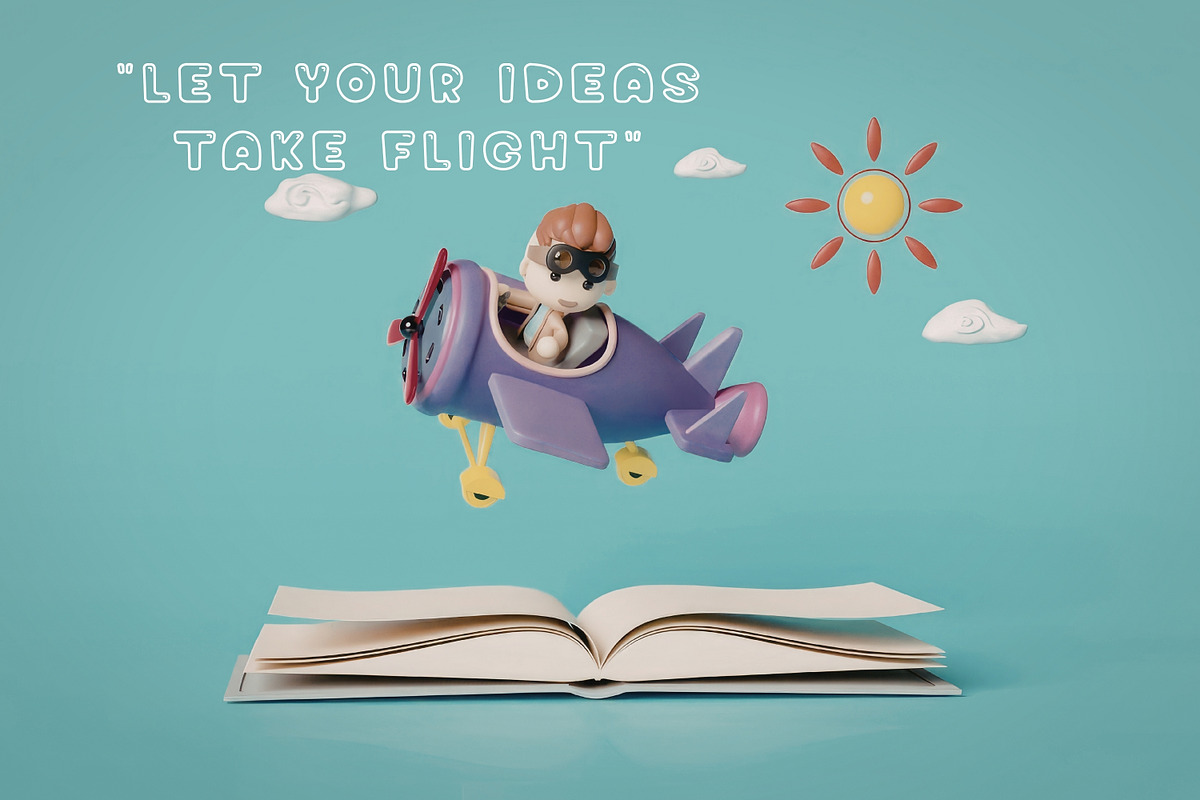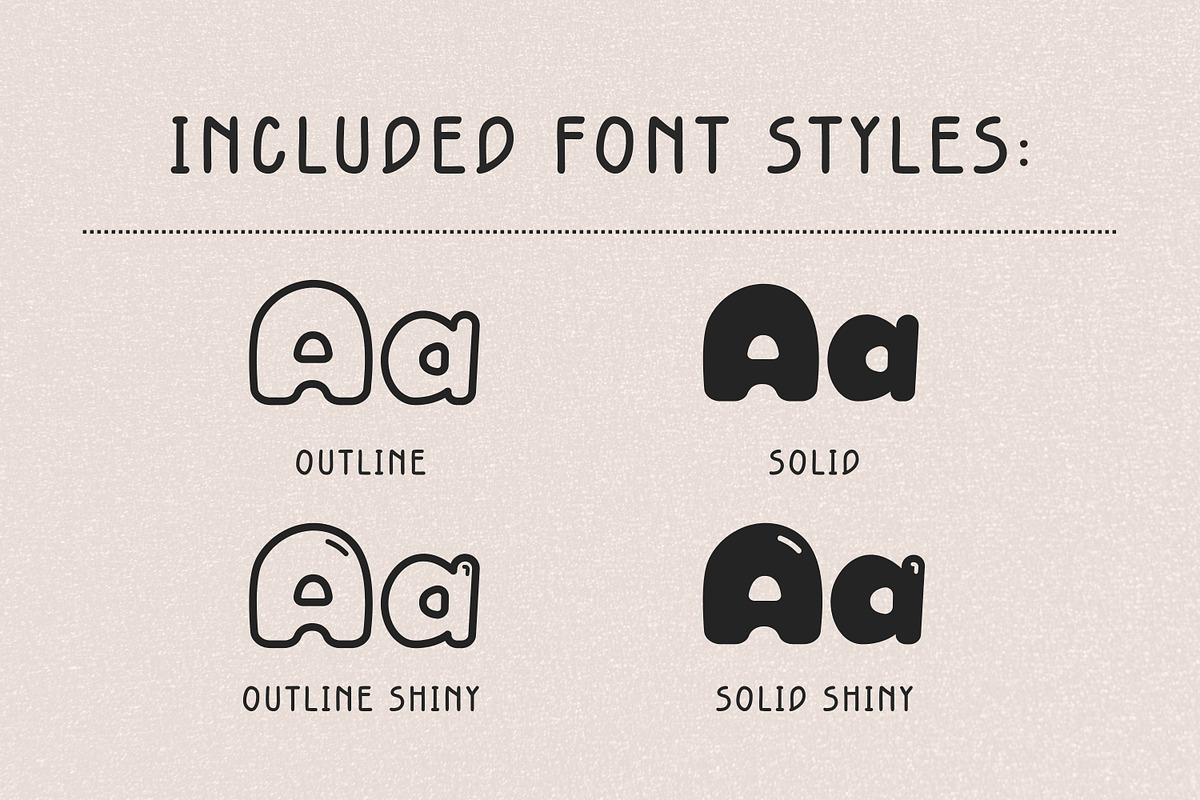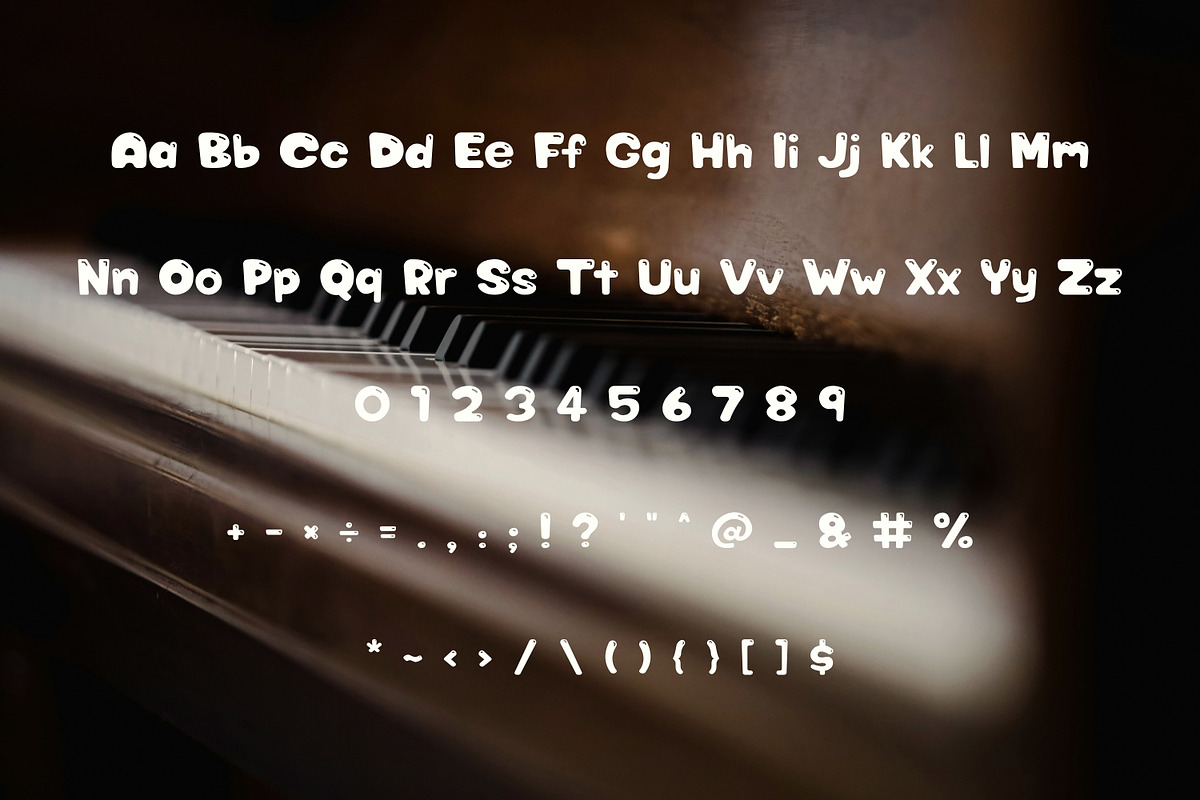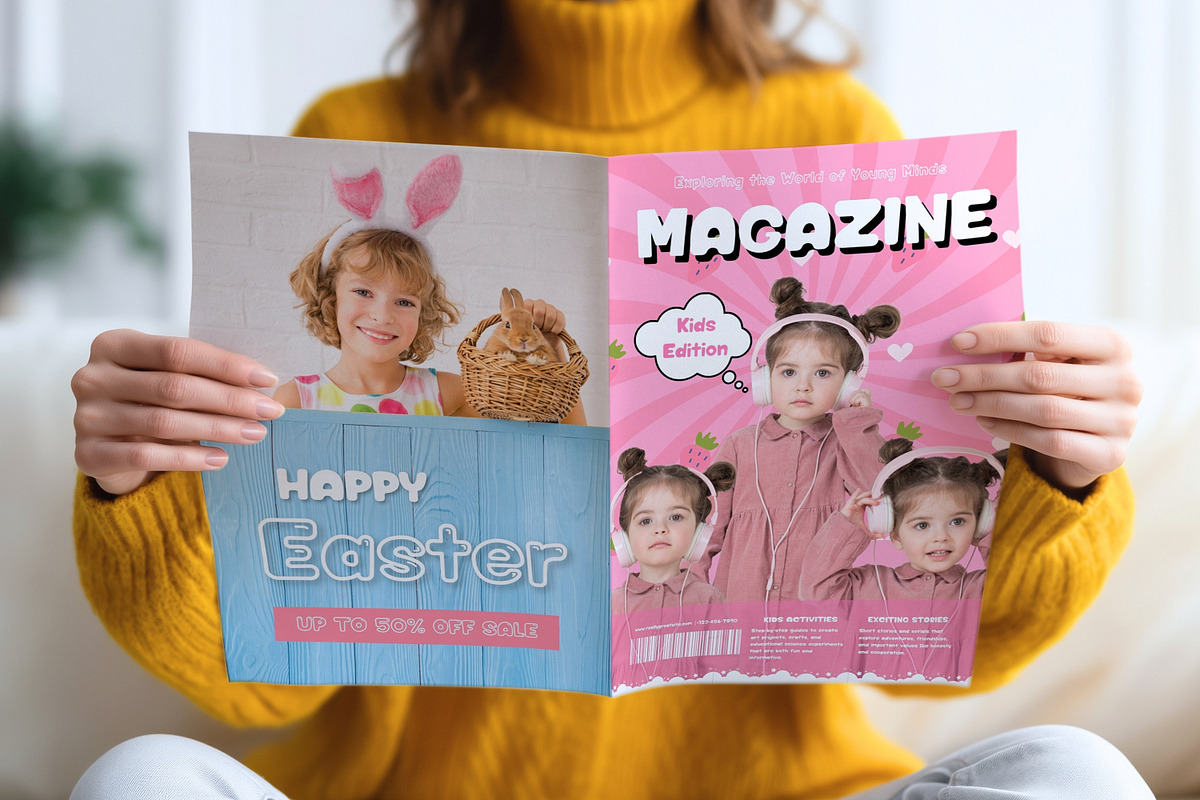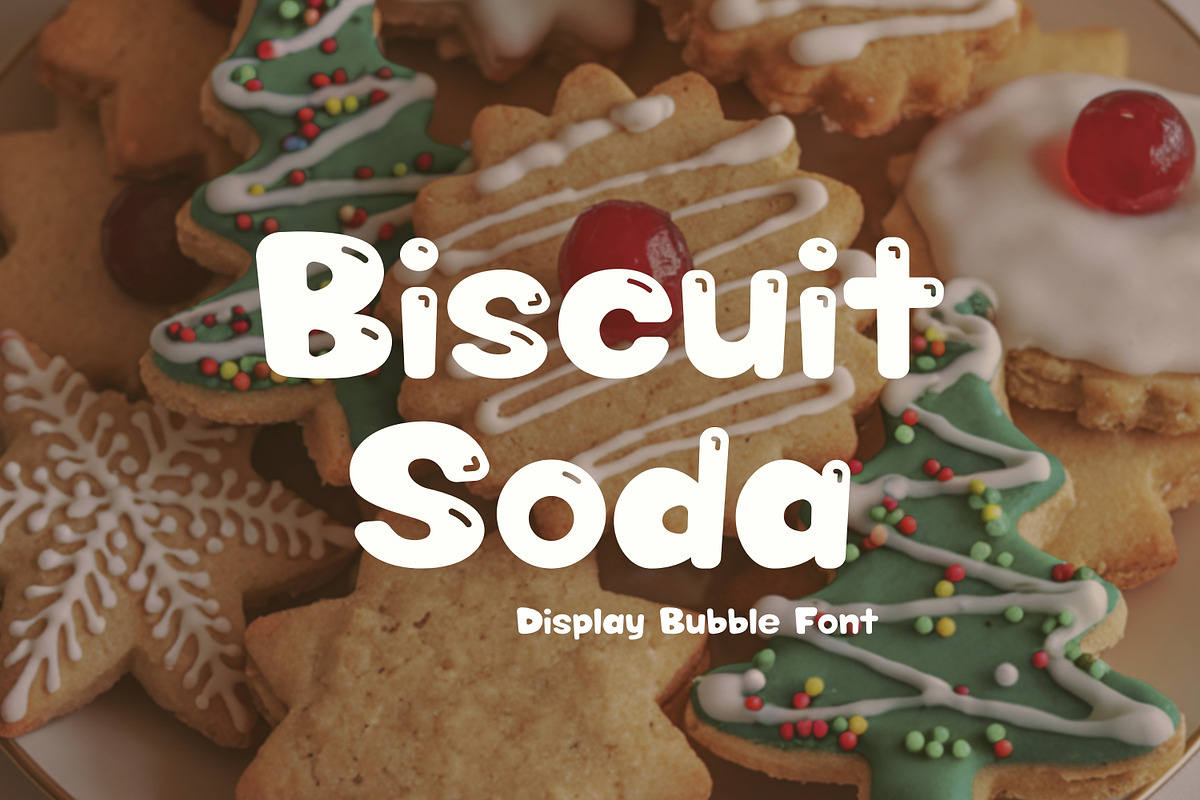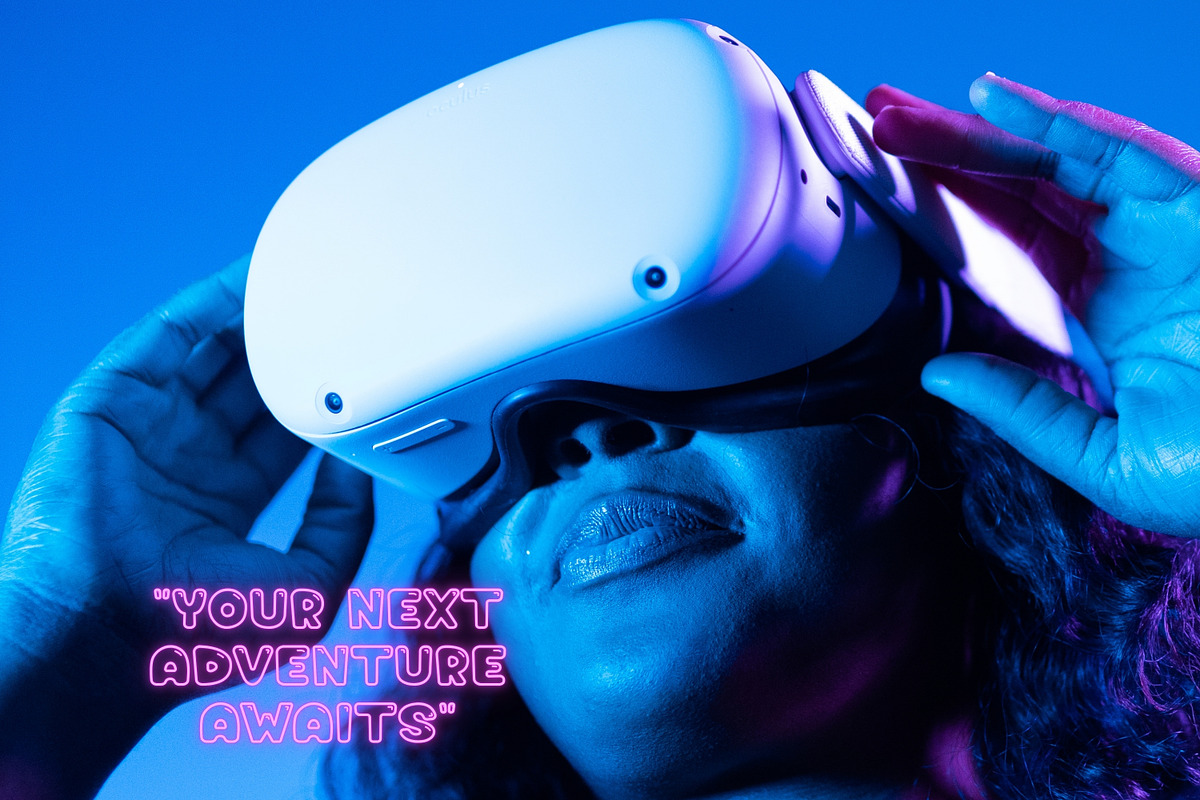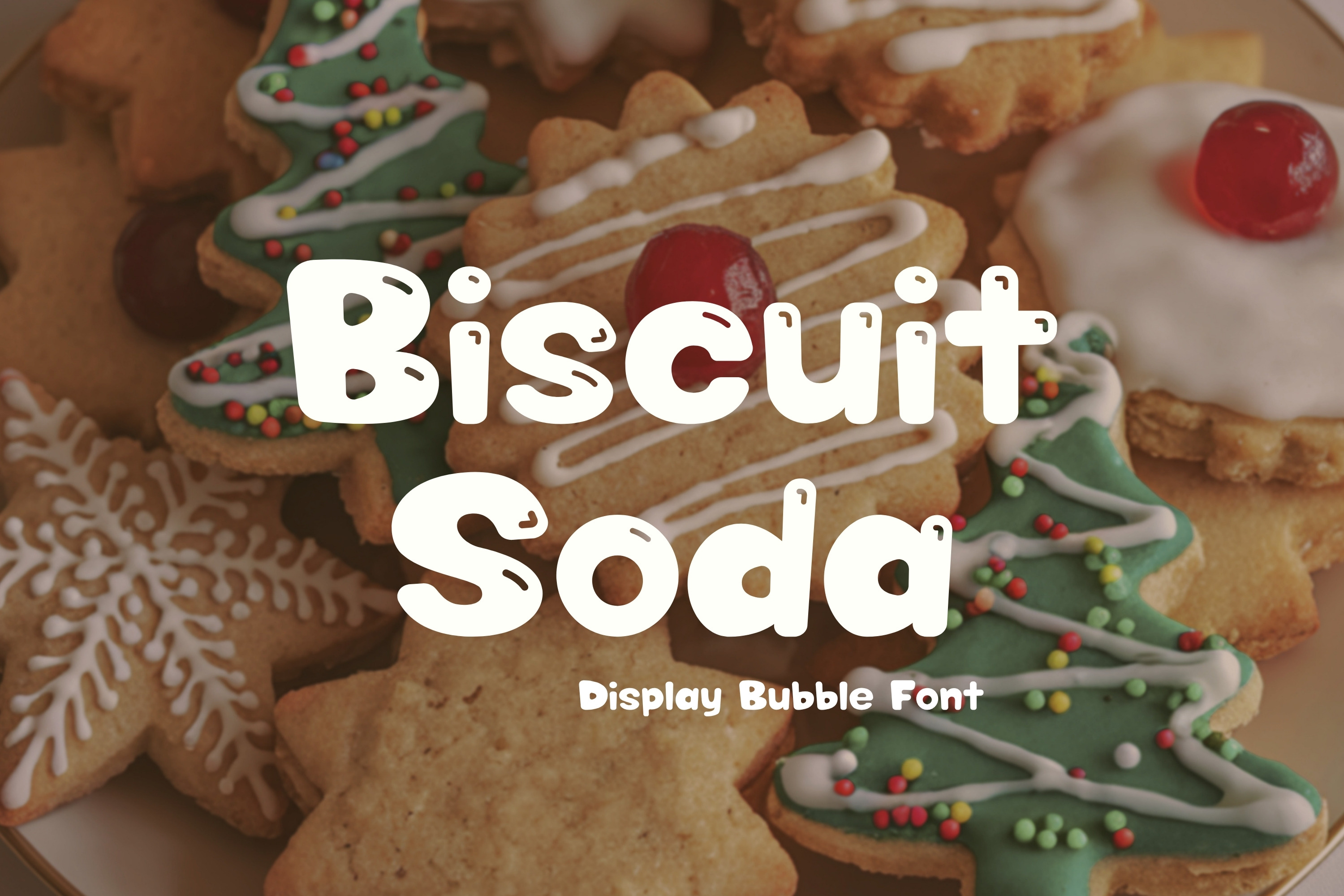
Bubble Display Font - Biscuit Soda
✨ Meet Biscuit Soda — a playful and adorable display bubble font designed to add charm, sweetness, and personality to your creative projects.This cute handmade-style typeface is perfect for fun branding, Cricut crafts, kids products, stickers, t-shirts, holiday designs, party invitations, and whimsical social media graphics. With its soft rounded edges and cheerful personality, Biscuit Soda brings a sweet and playful touch to every design.